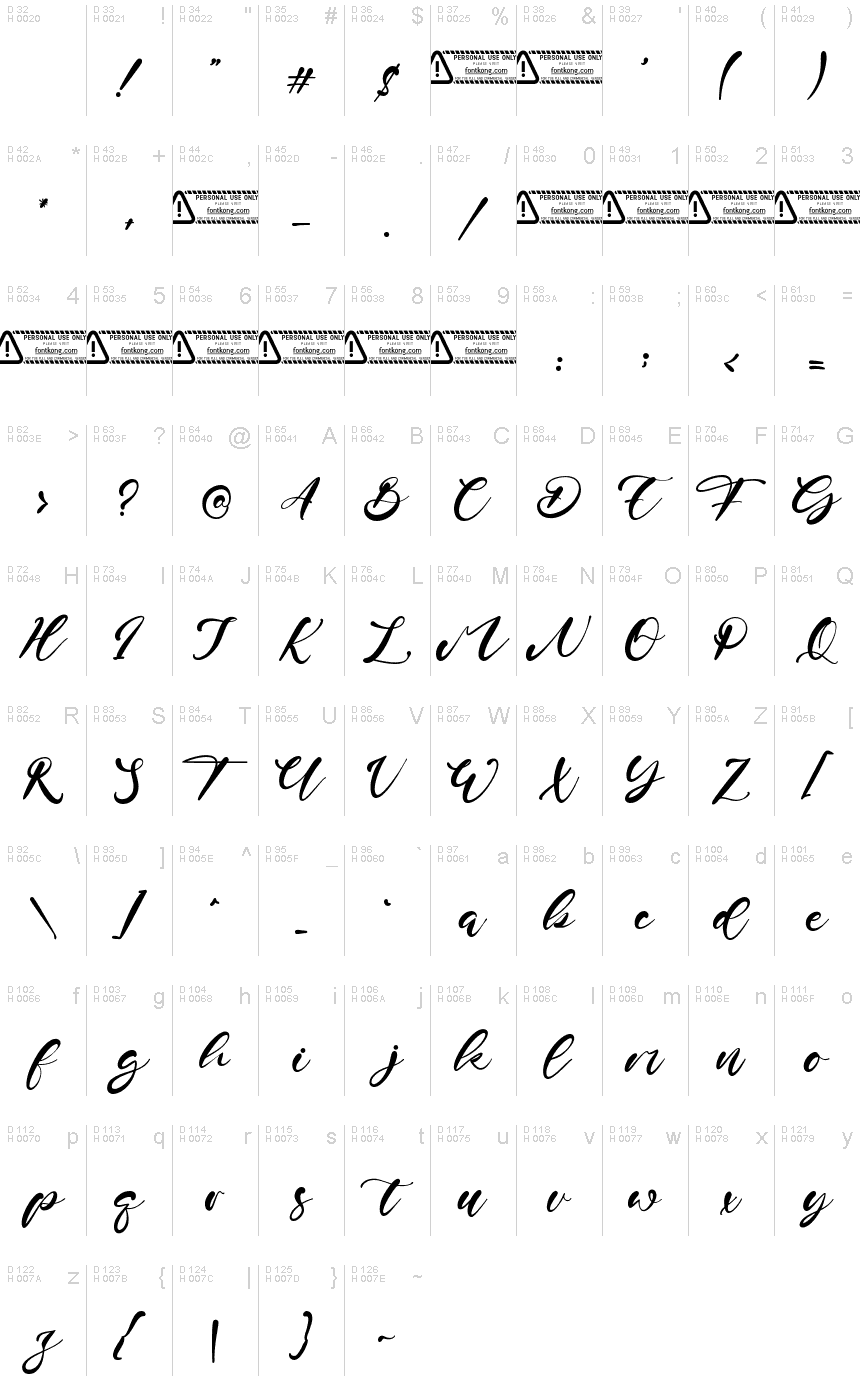
Brian Conor
Introducing Brian Conor, a beautiful handwritten brush script font designed by Kong Font. Perfect for creating eye-catching titles, logos, and invitations. Ideal for crafting creative posters and other artistic projects that demand an authentic, hand-made feel.